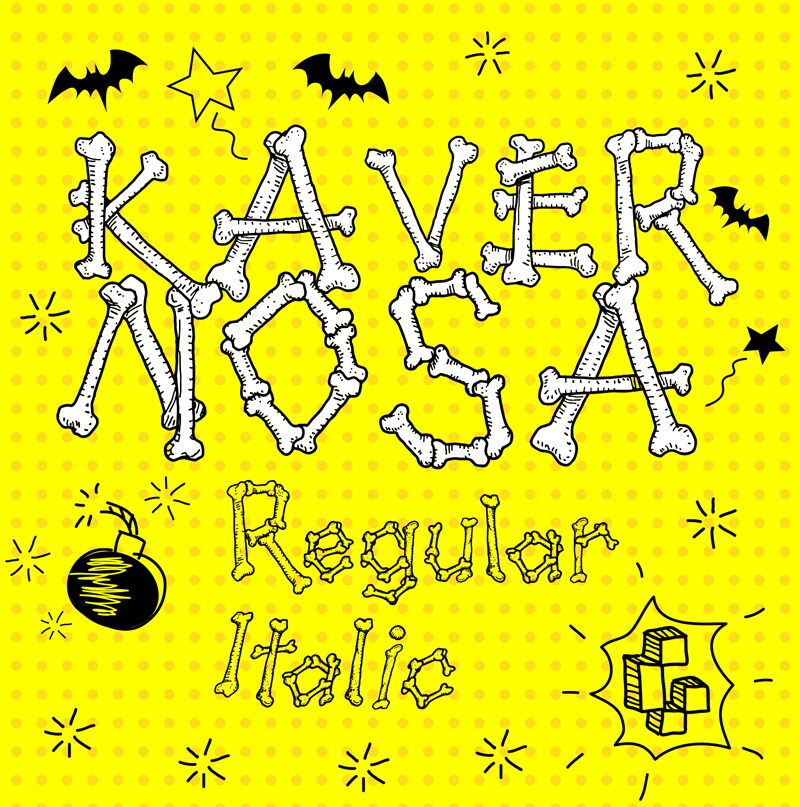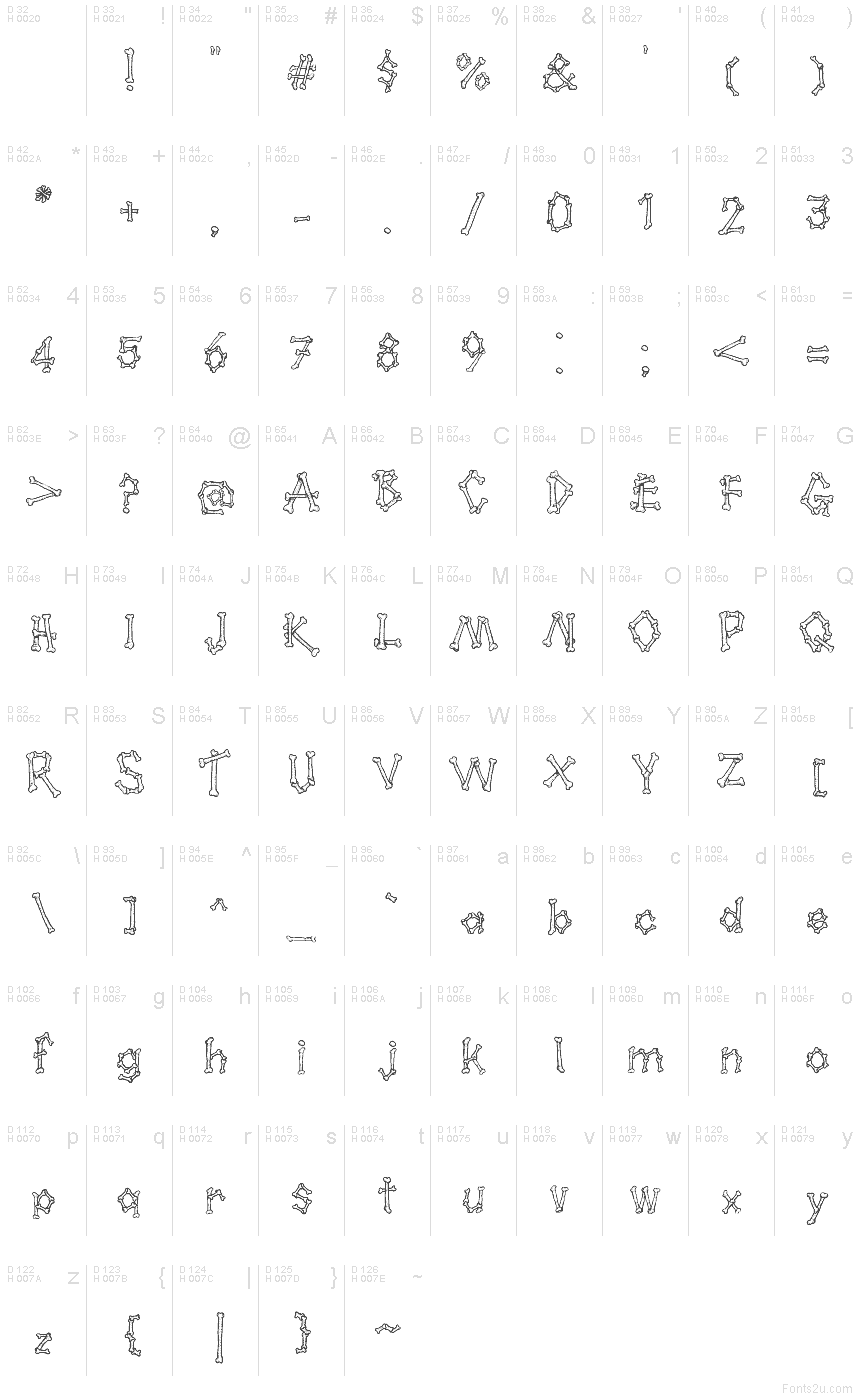
Kavernosa Regular
Kavernosa font by Galdino Otten Fonts is a display typeface featuring organic shapes and thematic novelty. Its irregular form and whimsical appearance are enhanced by decorative bones motifs for an impactful presentation. The font letters resemble cave carvings in both 2D and 3D, making this a vintage typeface with a nostalgic appeal suitable for themed projects.
Kavernosa is available for free download, making it an excellent choice for posters and flyers related to movies, video games, scripts, book covers, comic books, cartoon series covers or icons. Its use cases further extend to sets of playing cards or game boards, stickers design or even apparel branding projects – just let your imagination run wild!